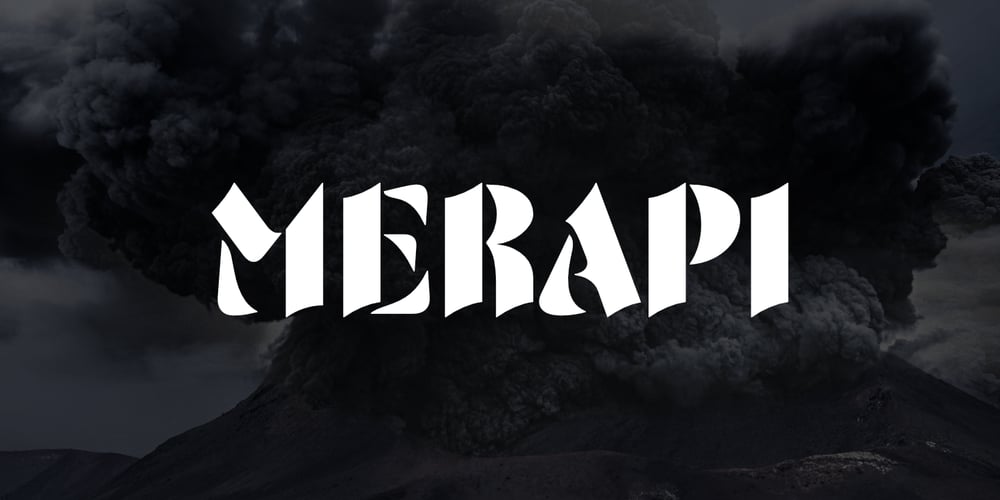
Merapi Font Family was designed by Muhammad Hastian and published by Hazztype. Merapi contains 1 styles and family package options. Merapi is a vintage stencil display font that exudes retro charm and industrial appeal. Inspired by classic stencil designs, it features distinct letterforms with sharp edges, capturing the essence of vintage typography. Perfect for adding a nostalgic touch to any project, Merapi balances authenticity with readability, making it ideal for headlines, posters, and branding with a timeless aesthetic.